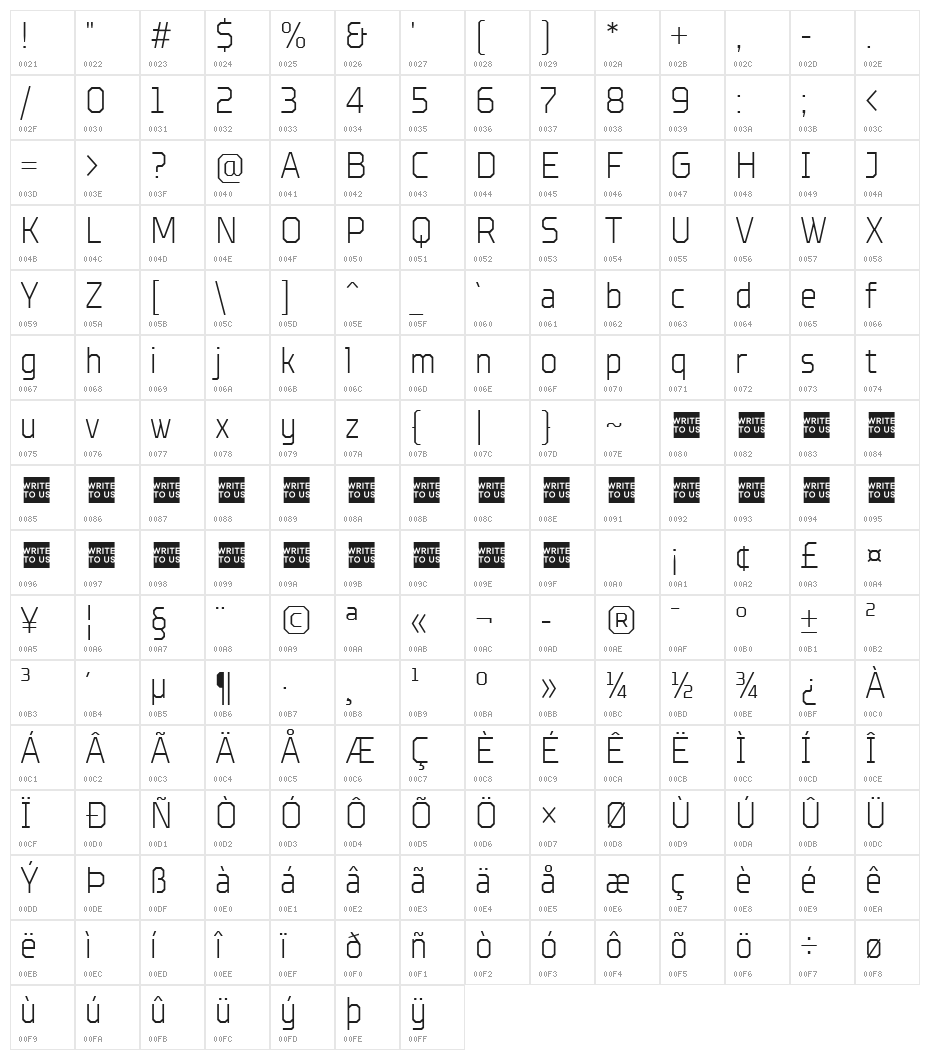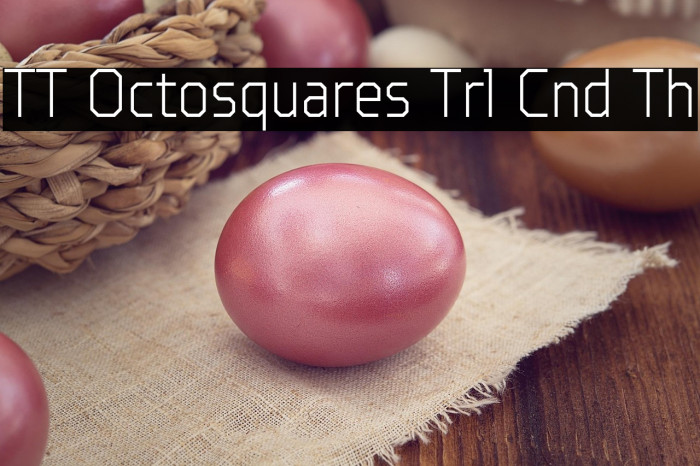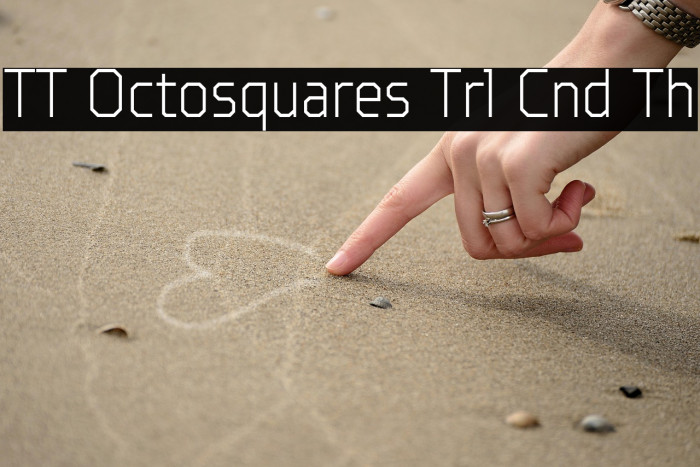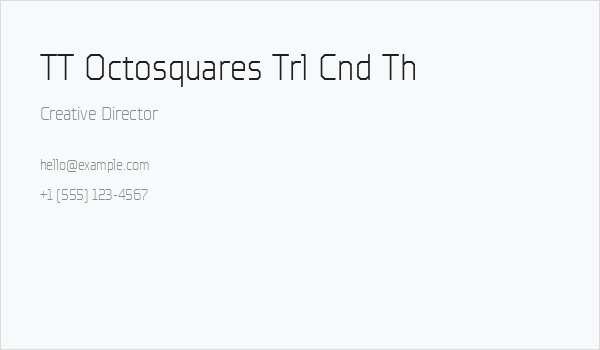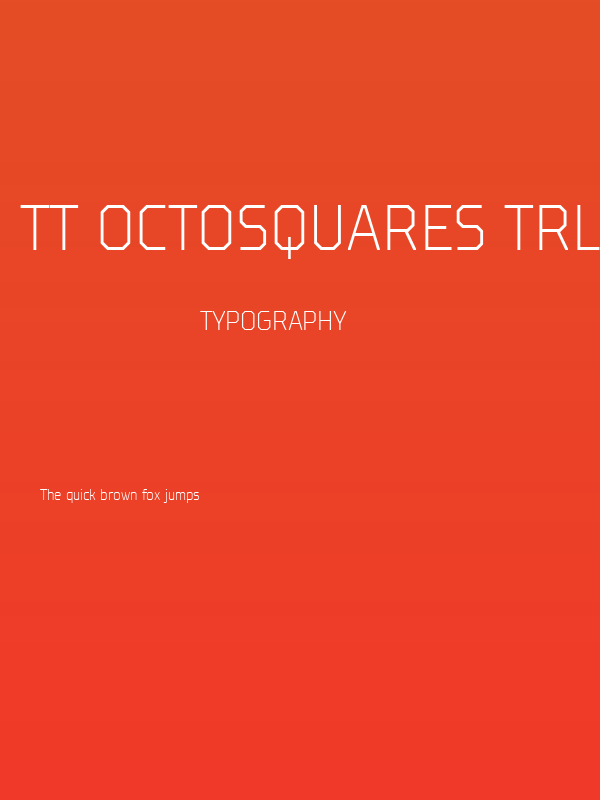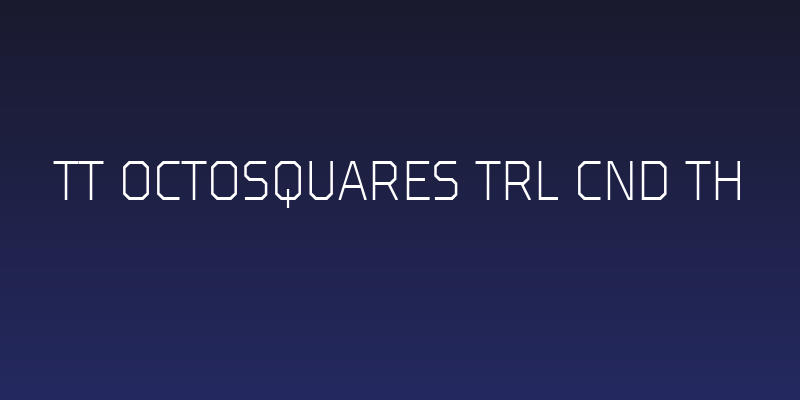
TT Octosquares Trl Cnd Th Font
TT Octosquares Trl Cnd Th Description
This font features a geometric and angular design, characterized by its octagonal shapes and clean lines. The uppercase and lowercase letters maintain a consistent structure, with sharp corners and a uniform stroke width that gives it a technical and modern appearance. The numerals and special characters follow the same design principles, ensuring a cohesive look across all glyphs. The font's condensed nature makes it suitable for space-saving applications while maintaining readability. Its unique style is both futuristic and minimalistic, making it ideal for projects that require a distinctive and contemporary aesthetic.
| Use Case | Headlines, Logos, Digital interfaces |
| Proposed Projects | Ideal for tech branding, futuristic designs, signage, and digital interfaces. |